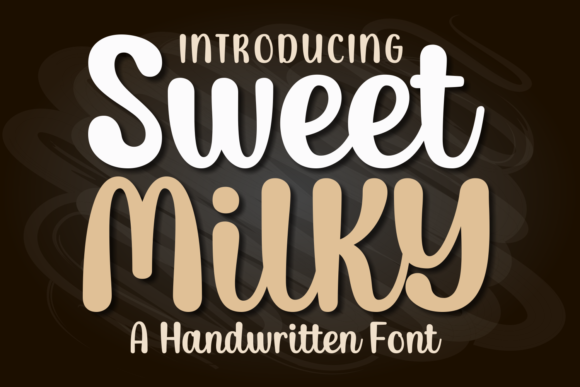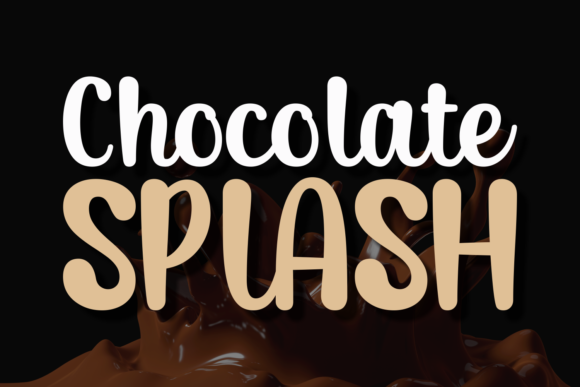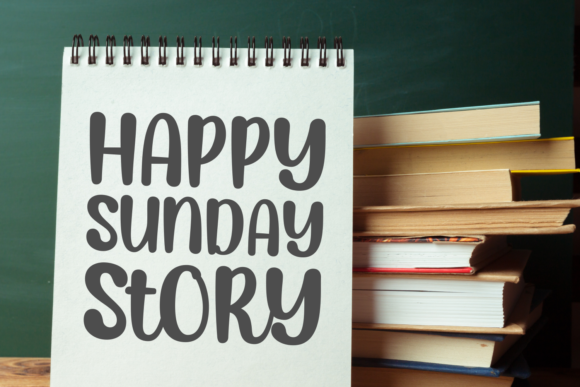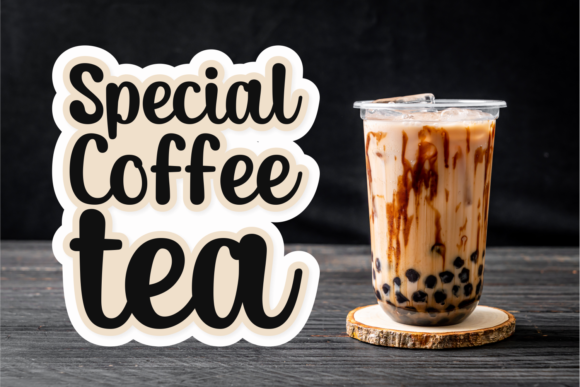
Sweet Milky Font
About Sweet Milky Font
Sweet Milky is a simple and playful handwritten font characterized. Its bubbly letters characterized by a modernized cursive structure will be sure to fill your next craft, project, or design with comfort and joy. Add Sweet Milky to your font library today – you will not be disappointed!